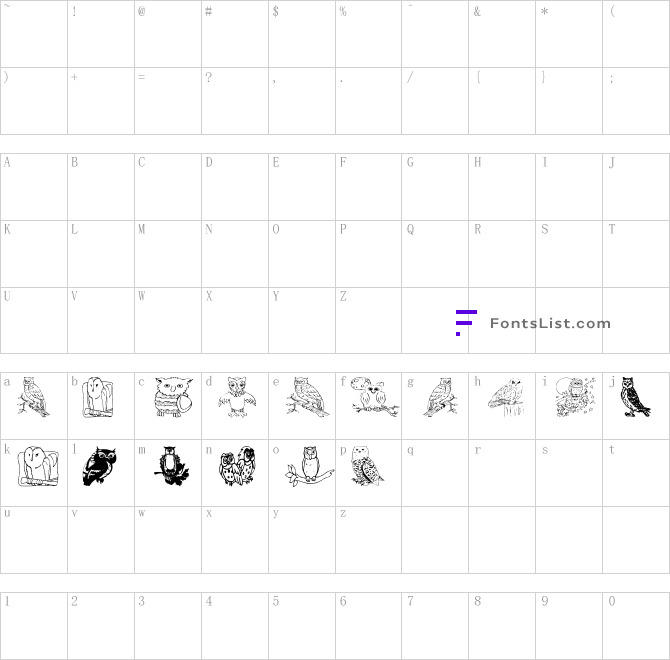
- Font Name:AEZ Owls for Traci
AEZ-Owls-for-Traci.ttf is a very beautiful artistic font, AEZ-Owls-for-Traci.ttf is widely used in the design and printing of various books and pictures,AEZ-Owls-for-Traci.ttf has a strong visual impact,AEZ-Owls-for-Traci.ttf is a commonly used font in newspapers, magazines and books, and is used in posters, e-commerce Poster design, store design, logo design, font design and other fields.AEZ-Owls-for-Traci.